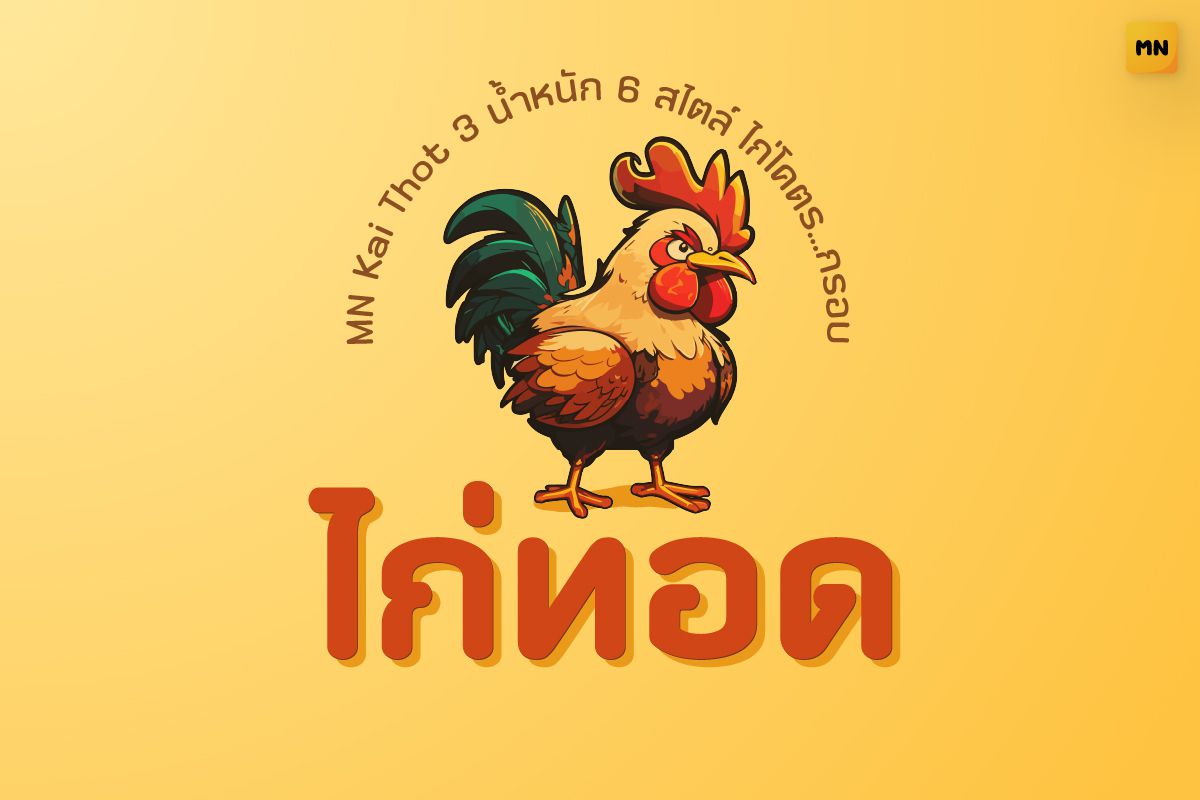
MN Kai Thot Bold Italic
A formal Thai sans-serif font with a minimalist design and soft rounded strokes. It offers a clean, modern, and approachable look, suitable for branding, signage, or any professional presentation.